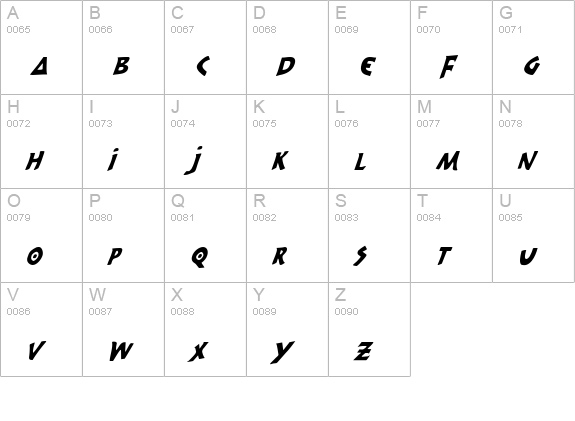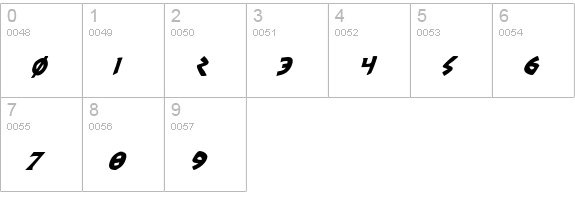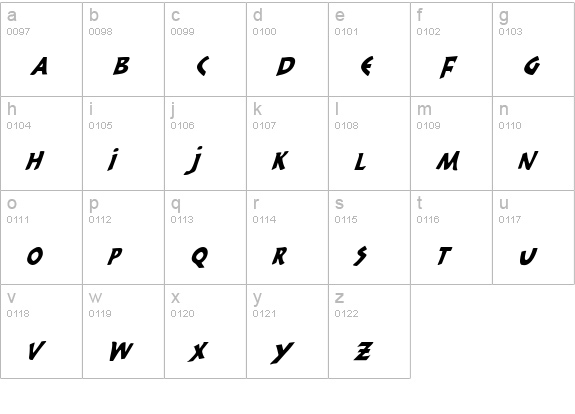
300 Trojans Condensed Italic is a distinctive, condensed-width, italic variant in the 300 typeface family \xE2\x80\x94 well suited to design and typography projects.
The 300 Trojans Condensed Italic font is a sleek and modern typeface that exudes sophistication and elegance. Its condensed form adds a touch of professionalism to any design project, making it ideal for branding, headlines, and editorial layouts. The italic styling of the font gives it a dynamic and contemporary look, perfect for conveying a sense of movement and energy. What's even better is that this stunning font is available for free download at FontsMarket.com. Whether you're a designer looking to add a stylish flair to your creations or a business owner seeking a standout font for your marketing materials, the 300 Trojans Condensed Italic font is sure to impress. Don't miss out on this opportunity to enhance your projects with this exquisite typeface. Download it now and elevate your designs to the next level!